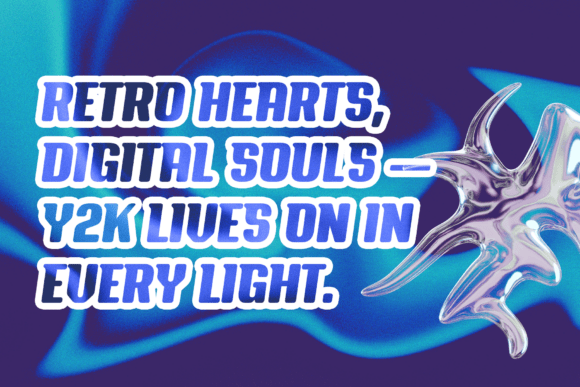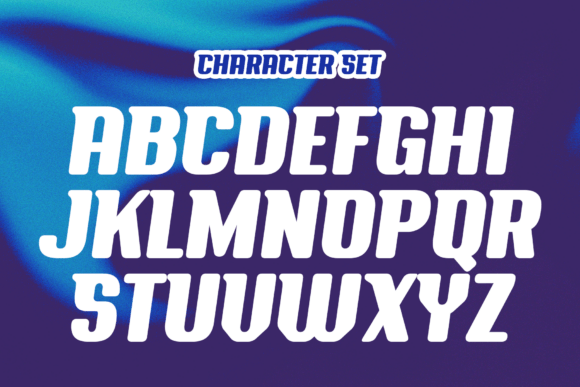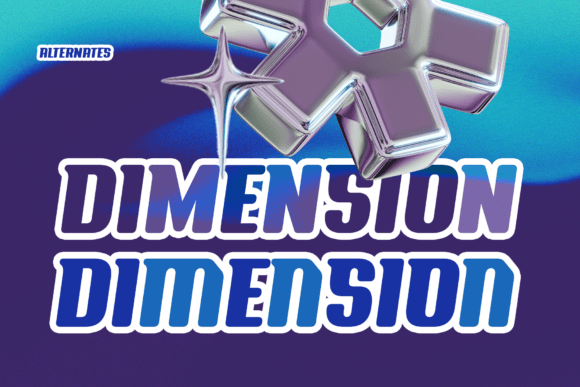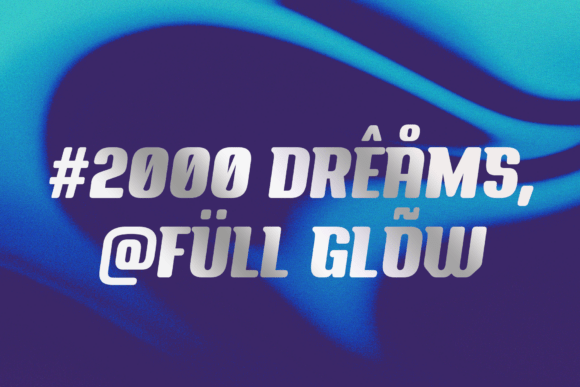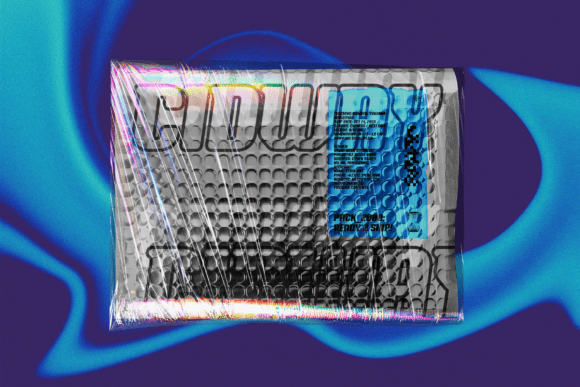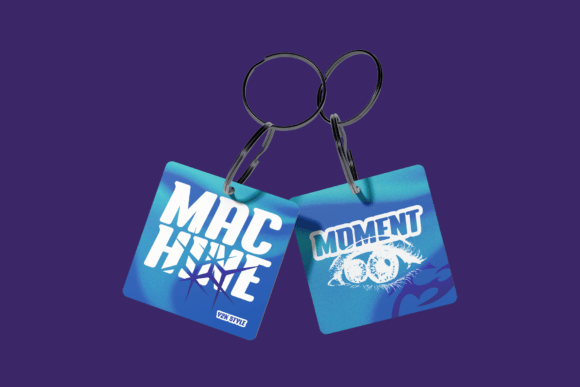
Introduction to Cidway Font
Blast off with Cidway, a powerfully futuristic Y2K display font that commands the stage with its ultra-chunky, wide-set, and confident silhouette.
Cidway – Y2K Girly Font is a playful throwback to early-2000s aesthetics, blending bubbly letterforms with a soft, feminine attitude It captures the charm of retro pop culture: glossy magazines, flip phones, glitter stickers, and sparkly diary covers.